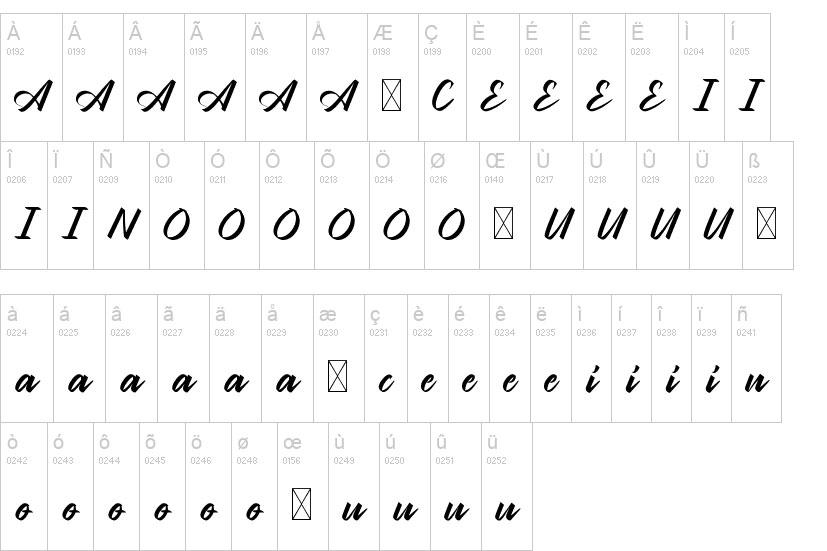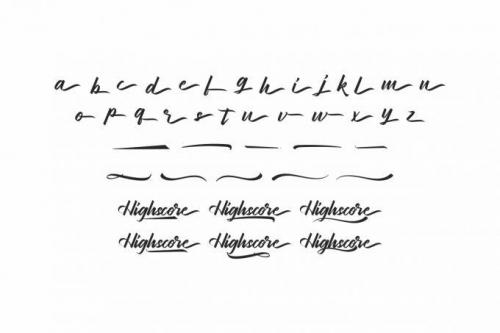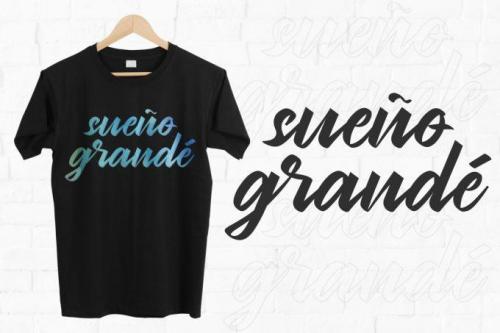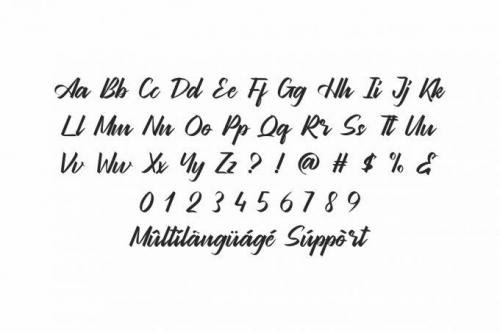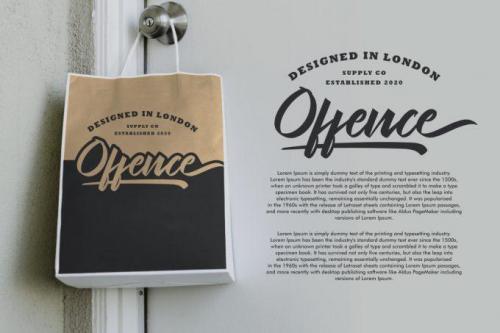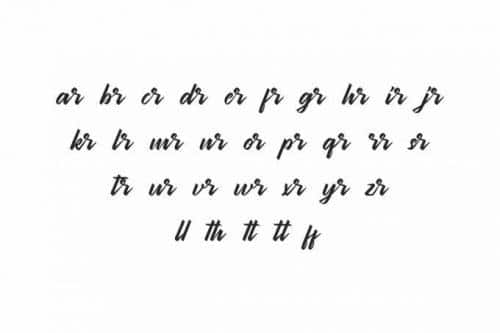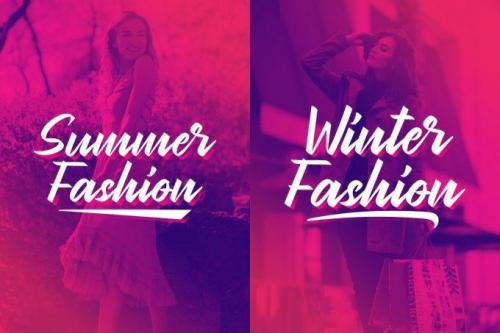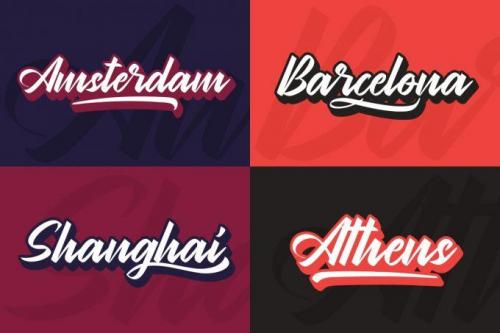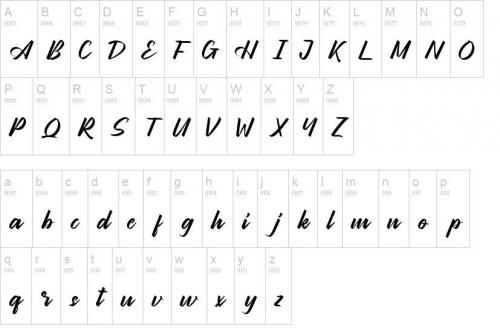
Highscore is an eye-catching calligraphy script font. This font will add a classic style to logos, stationery, business cards, flyers, brochures, and more. PUA encoded glyphs and swashes are included which means you can access them with ease.
- Designer: NihStudio